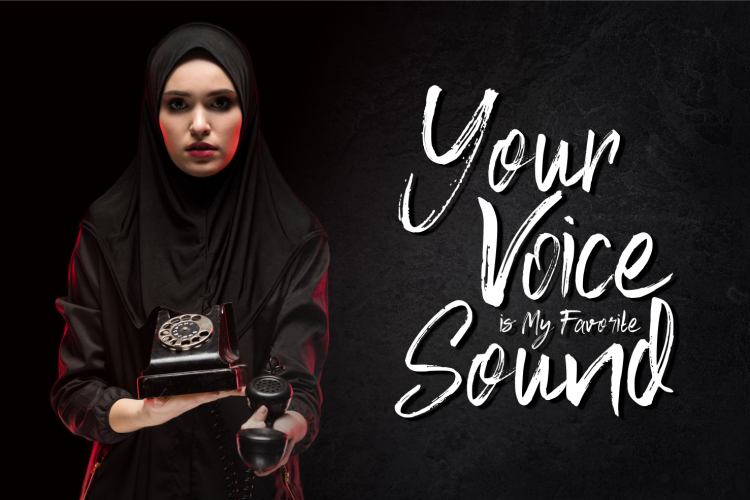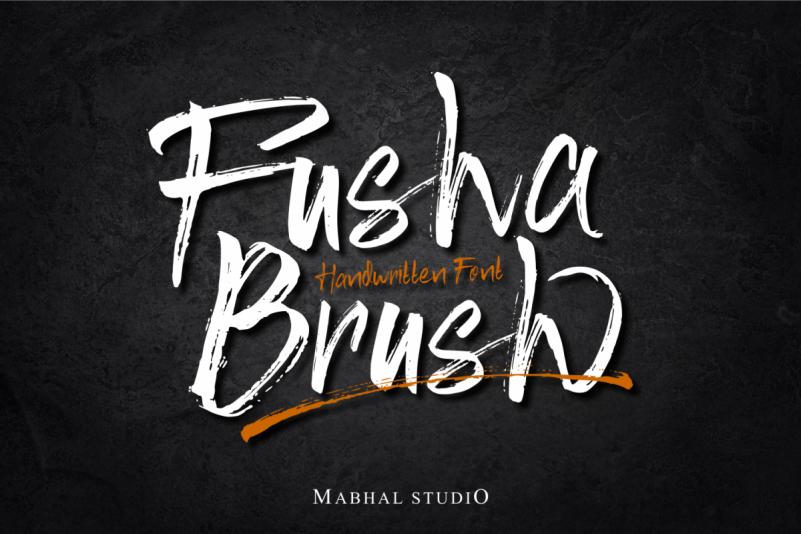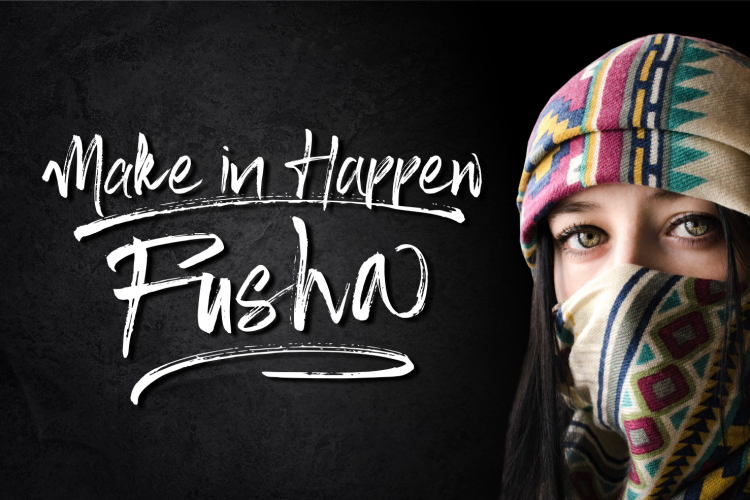
Fusha Font
Fusha Brush is a handwritten script font with a real pen brush texture.
Has several swash and several alternative styles that can be used as needed.